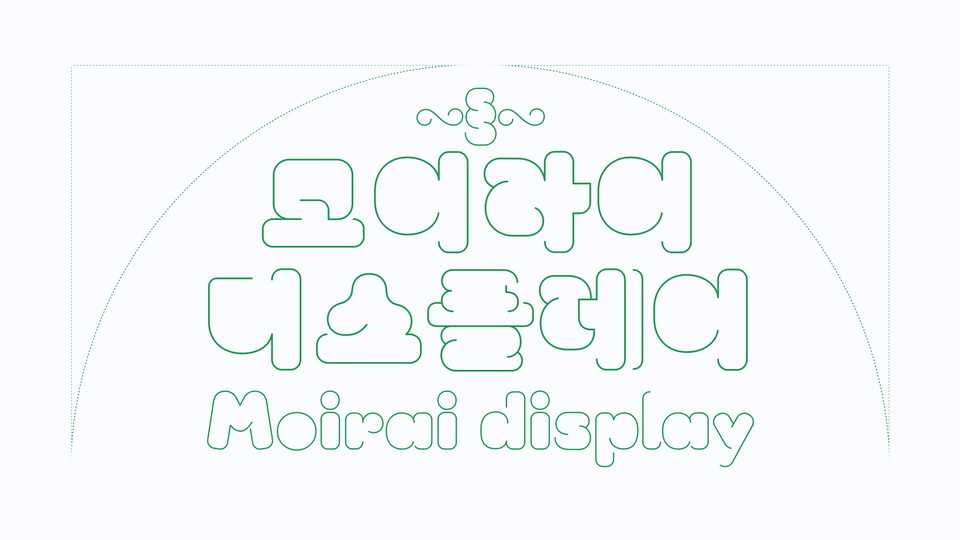
Download Moirai font, a display typeface that experiments with stroke movement with visibility and legibility. Moirai font is designed to draw, arrange, and delete strokes of letters to have the minimum strokes and slopes necessary for that letter to be recognized.